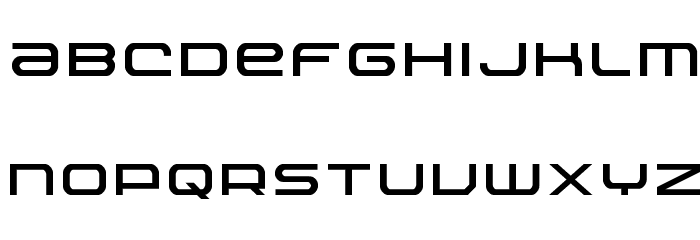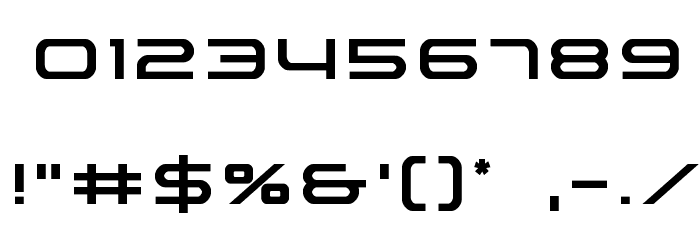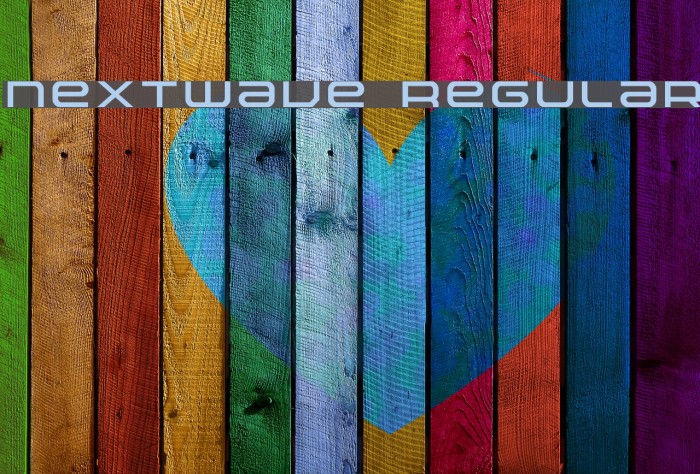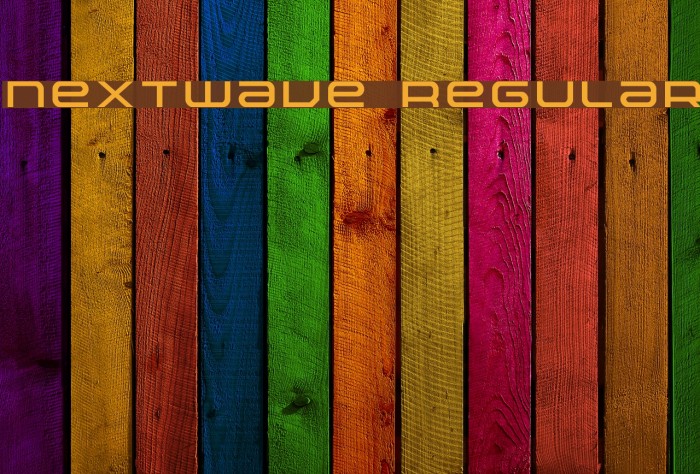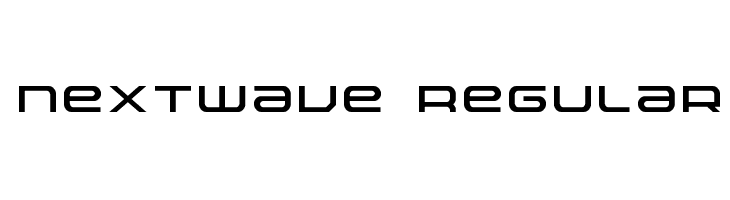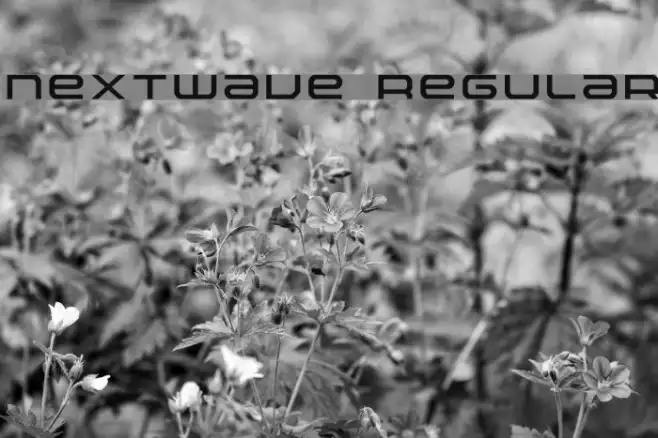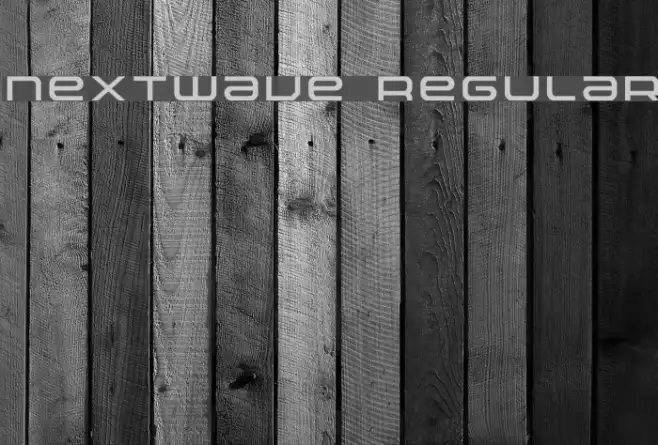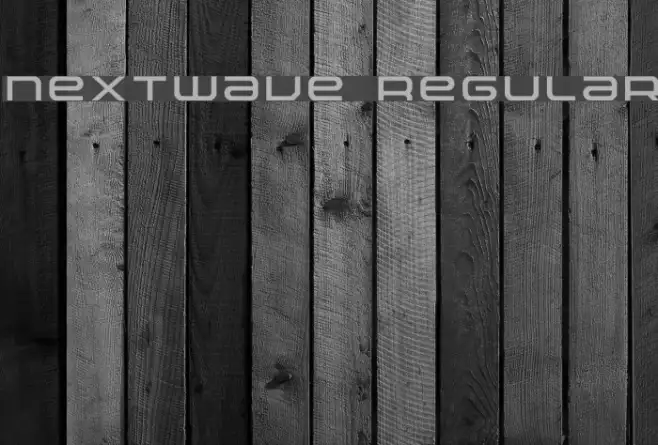
Nextwave Regular Font
This font features a modern, geometric design with a futuristic appeal. The characters are constructed with clean, straight lines and rounded corners, giving it a sleek and contemporary look. The uppercase and lowercase letters maintain a consistent height, contributing to a uniform appearance. The numerals and special characters follow the same design principles, ensuring a cohesive style throughout. The font's simplicity and clarity make it highly legible, even at smaller sizes, while its unique style adds a distinctive touch to any project.
A modern, geometric font with a futuristic and sleek design.
- Proposed Projects: Ideal for technology branding, modern web design, futuristic posters, and innovative product packaging.